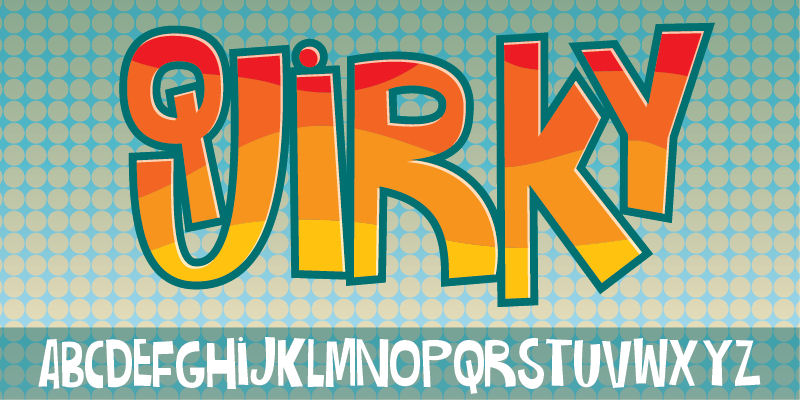
The Quirky Font Free Download is ideal for playful posters, greeting cards, social media graphics, and unique branding, adding a fun, eccentric touch.
This font is exciting because its unconventional, whimsical design with irregular shapes and playful curves brings a vibrant, non-conformist energy to any project.
The Quirky family includes Regular, Bold, Clean, and Back styles, offering diverse options for creative typography.
Inject personality into your designs with the Quirky Font Free Download, a decorative typeface crafted by Billy Argel Fonts. Known for its offbeat, hand-drawn aesthetic, Quirky breaks traditional typography rules with its eclectic letterforms, making it perfect for eye-catching headlines or quirky logos. Ideal for projects needing a playful, creative edge—like event flyers, children’s books, or artisanal branding—this font delivers a distinctive charm. Its versatility ensures sharp visuals across digital and print platforms, from websites to merchandise. As 2025 design trends embrace bold, unconventional typography, downloading Quirky Font Free Download keeps your work fresh and engaging. Test it today to explore its lively potential, and consider purchasing for commercial use to fully amplify your creative vision.